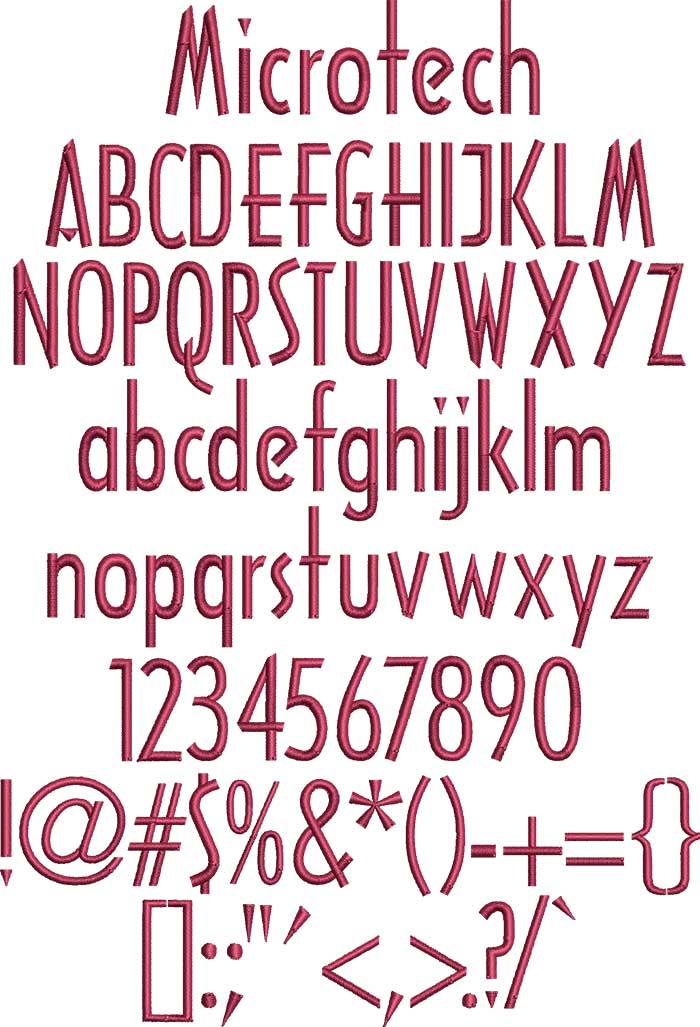
BX Embroidery Font: Microtech
BX Embroidery Font: Microtech is a stylized, condensed, sans serif machine embroidery font that includes A-Z, a-z, 0-9 and punctuation. 4 sizes; satin stitch.
BX Embroidery Font: Microtech is a stylized, condensed, sans serif machine embroidery font that includes A-Z, a-z, 0-9 and the following punctuation: !@#$%&*()-+={}[]|:;”‘<>,.?/` (91 total characters per size); 4 sizes; satin stitch.
Each character in this alphabet is individually manually digitized; we do not use a TrueType to Stitches conversion utility to create our fonts. Additionally, stitch attributes such as stitch type, density, compensation, and underlay are optimized for each size available. Choose the size closest to what you need. Shrinking the smallest size is not recommended.
Our fonts were manually digitized; we do not use a TrueType to Stitches conversion utility to create our fonts. Plus, stitch attributes such as density, compensation, and underlay are optimized for each size available.